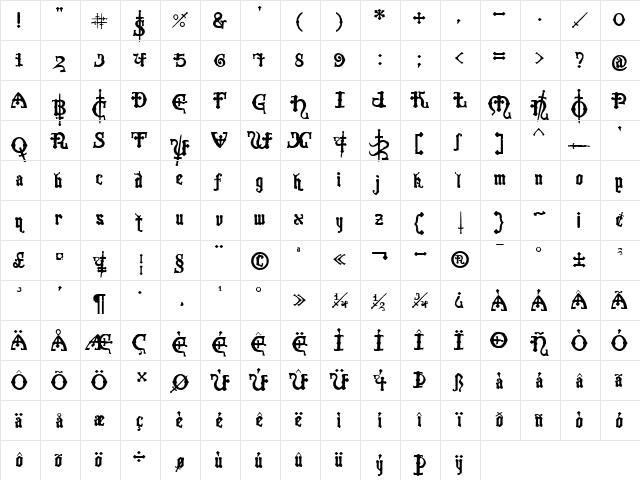
Crusades Alternate Regular
| Designer | Fontsmith - Scot Jenkins 1999 |
Design Context for Crusades Alternate Typeface
Crusades Alternate is a composed and adaptable typeface that performs quietly and consistently across a wide range of design contexts.